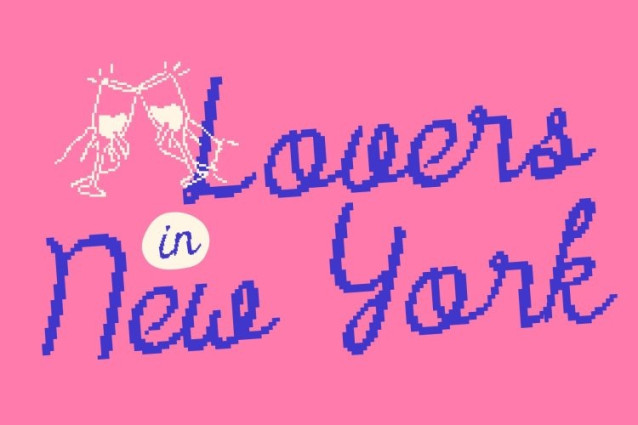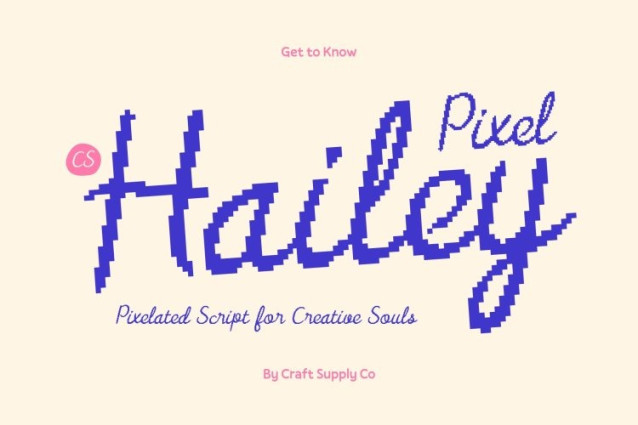
CS Hailey Pixel Font
CS Hailey Pixel Font This is a modern script font that expresses elegance through soft, flowing curves and refined handwritten forms. Each letter is crafted with smooth transitions and gentle movement, creating a graceful rhythm that feels warm, luxurious, and inviting. The subtle pixel nuance adds a contemporary digital touch without disrupting its classic charm, allowing the font to feel polished yet expressive.
A Harmonious Blend of Classic and Modern Style
Balancing traditional cursive beauty with modern design sensibility, this font delivers sophistication with clarity. Its well-proportioned strokes maintain legibility while preserving an organic handwritten feel. This thoughtful balance makes the font visually appealing and practical, ensuring it looks elegant in both large displays and refined text settings.
Ideal for Premium and Feminine Branding
This font is perfectly suited for designs that emphasize elegance and femininity. It shines in wedding invitations, boutique branding, beauty products, fashion labels, and luxury packaging. The font communicates professionalism and exclusivity while remaining approachable, making it ideal for brands that want to feel personal, stylish, and high-end.
Versatile Elegance for Creative Applications
From editorial layouts and social media graphics to personal stationery and event materials, This font adapts effortlessly. It can stand alone as a focal point or complement minimalist designs with subtle sophistication. This versatility makes it a timeless script font choice for designers seeking modern elegance with a graceful flow.